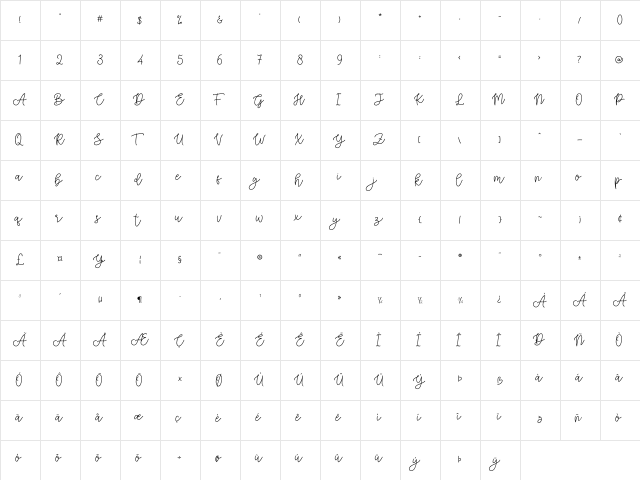
Cattoms cute Regular
| Foundry | Wandani Creative |
| Designer | Rizaldi Wandani |
Design Context for Cattoms cute Typeface
Cattoms cute is a composed and adaptable typeface that performs quietly and consistently across a wide range of design contexts.